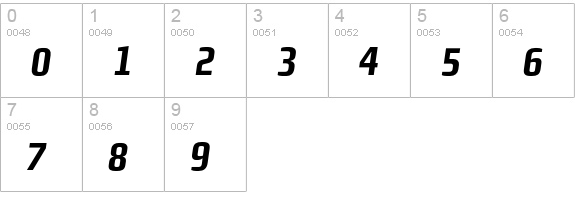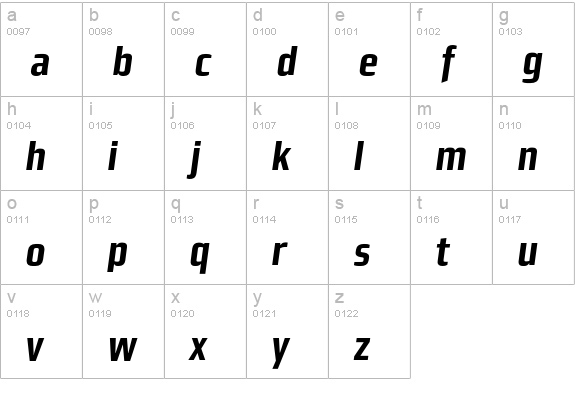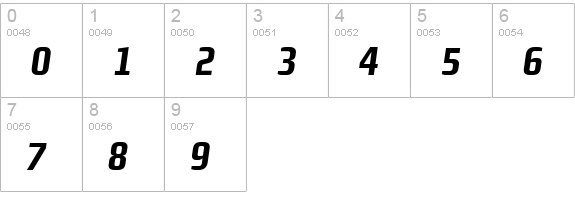
MorganSansCond Bold ItalicLining Font Details
MorganSansCond Bold ItalicLining is a strong, high-contrast variant in the MorganSansCond typeface family \xE2\x80\x94 well suited to headlines, attention-grabbing titles, and strong calls-to-action.
MorganSansCond Bold ItalicLining font is a striking and modern typeface that exudes confidence and sophistication. Its bold and italic design adds a touch of flair to any project, making it perfect for headlines, titles, and branding materials. The clean lines and elegant curves of this font make it highly versatile and suitable for a wide range of design applications. What's even better is that MorganSansCond Bold ItalicLining font is free to download at FontsMarket.com. This means you can easily add this stylish font to your font library without any cost, allowing you to elevate your designs without breaking the bank. Don't miss out on this fantastic opportunity to enhance your projects with a premium font that's both eye-catching and professional. Download MorganSansCond Bold ItalicLining font today and take your designs to the next level!